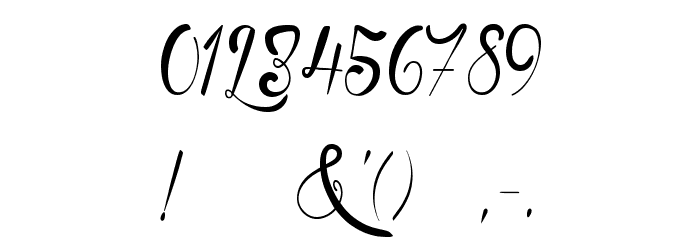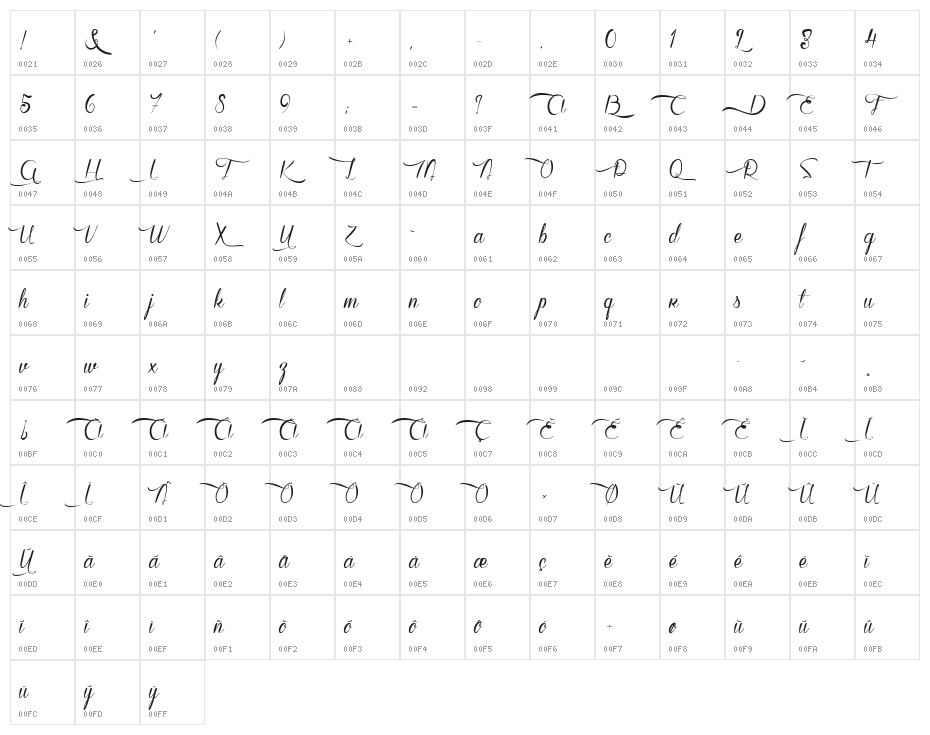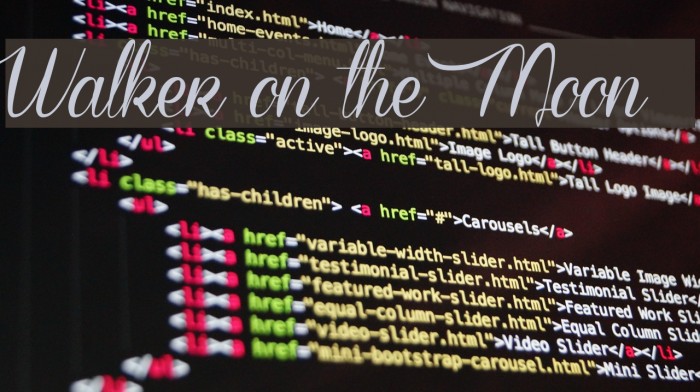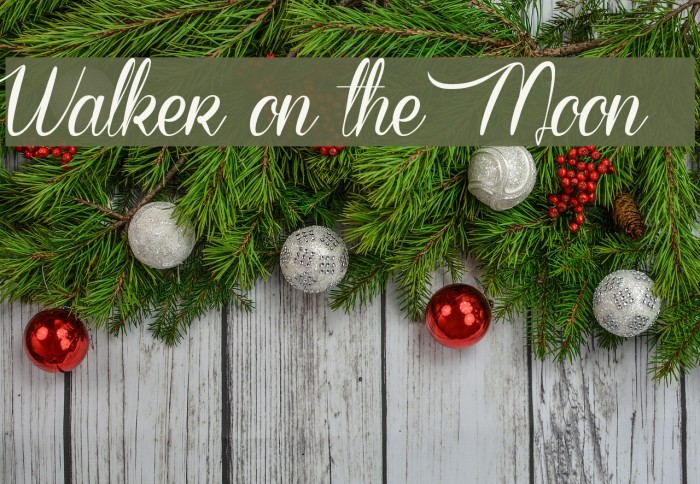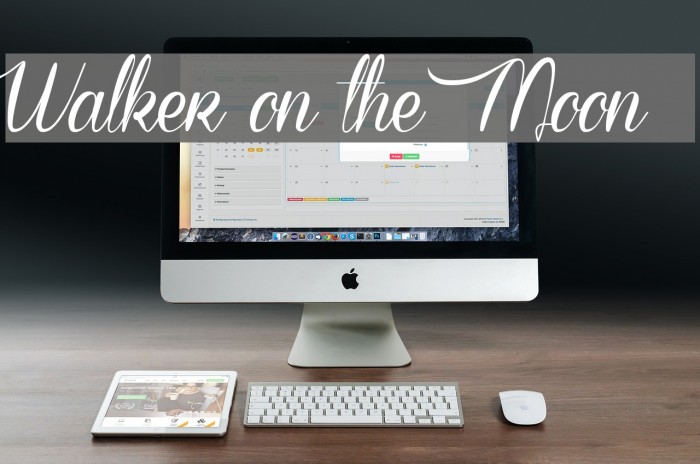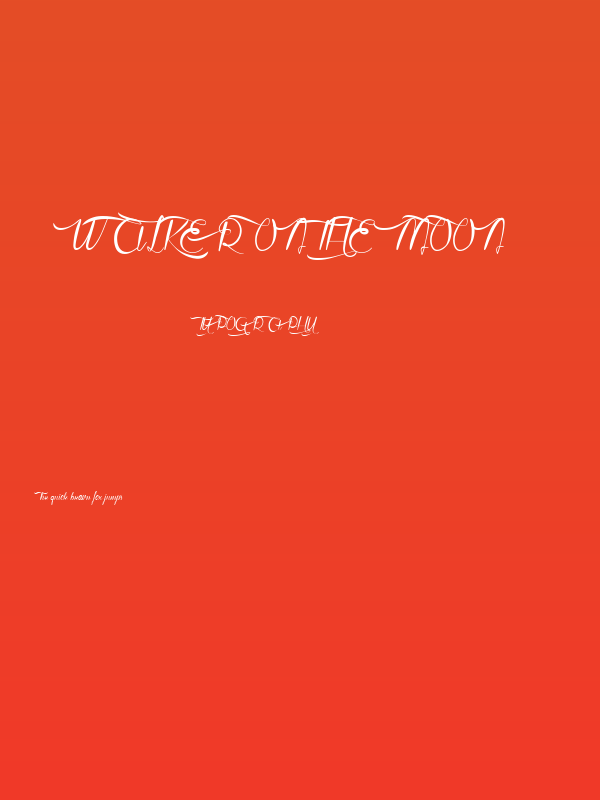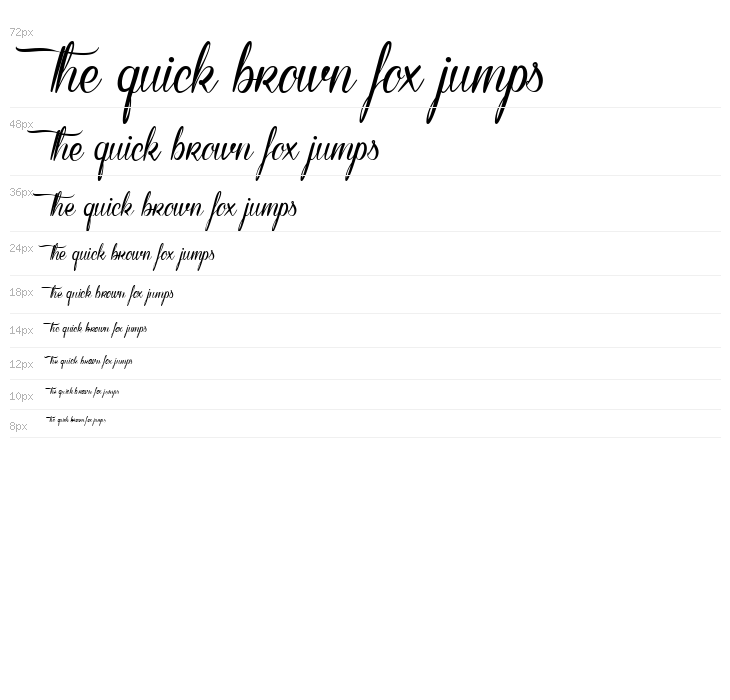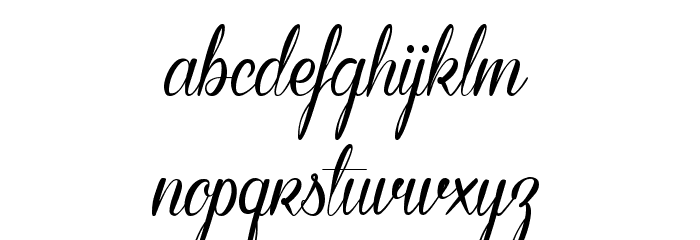
Walker on the Moon Font
Walker on the Moon Description
This font exhibits an elegant and sophisticated script style, characterized by its flowing, cursive letterforms with intricate swashes and flourishes. The uppercase letters are particularly ornate, with extended strokes and loops that give a sense of movement and grace. The lowercase letters maintain a more restrained elegance, ensuring readability while still offering a touch of flair. The numerals are consistent with the overall style, featuring subtle curves and a slight slant that complements the alphabetic characters. Special characters are thoughtfully designed, maintaining the decorative theme without compromising functionality.
| Use Case | Logos, Invitations, Decorative Headlines |
| Proposed Projects | Ideal for wedding invitations, luxury branding, elegant packaging, and decorative headlines. |